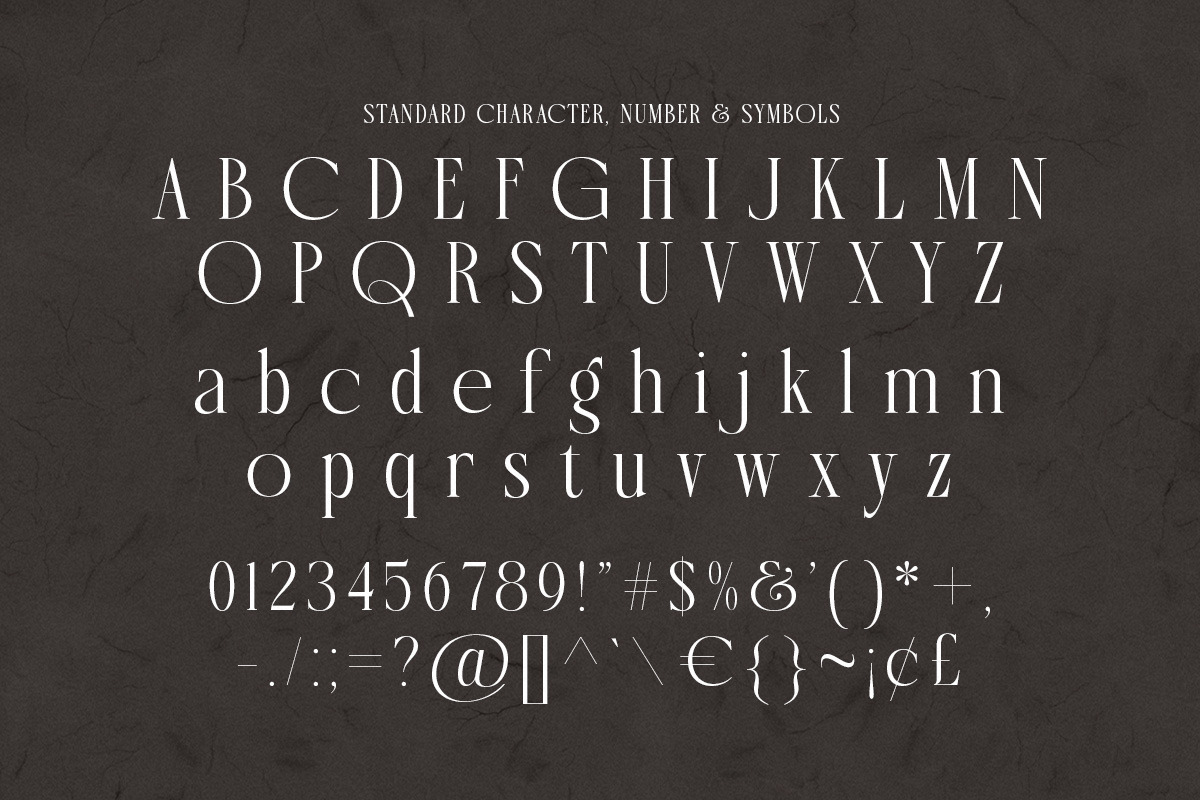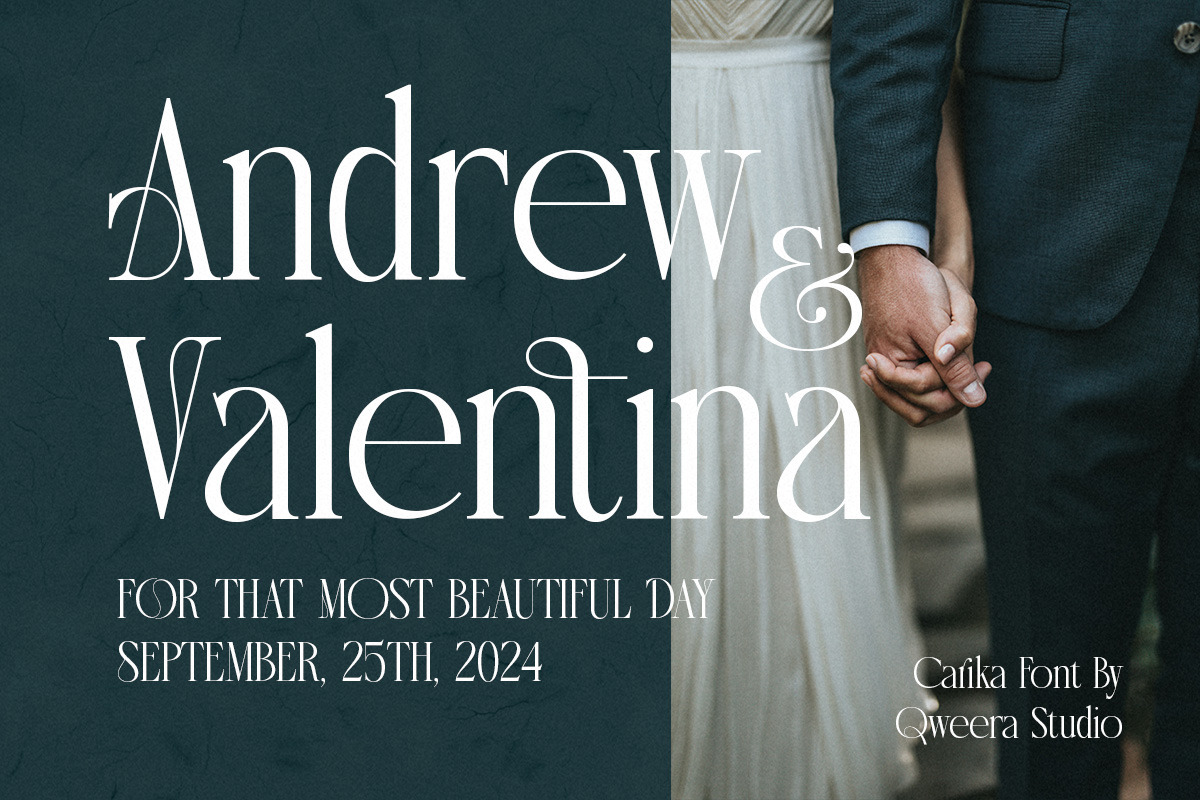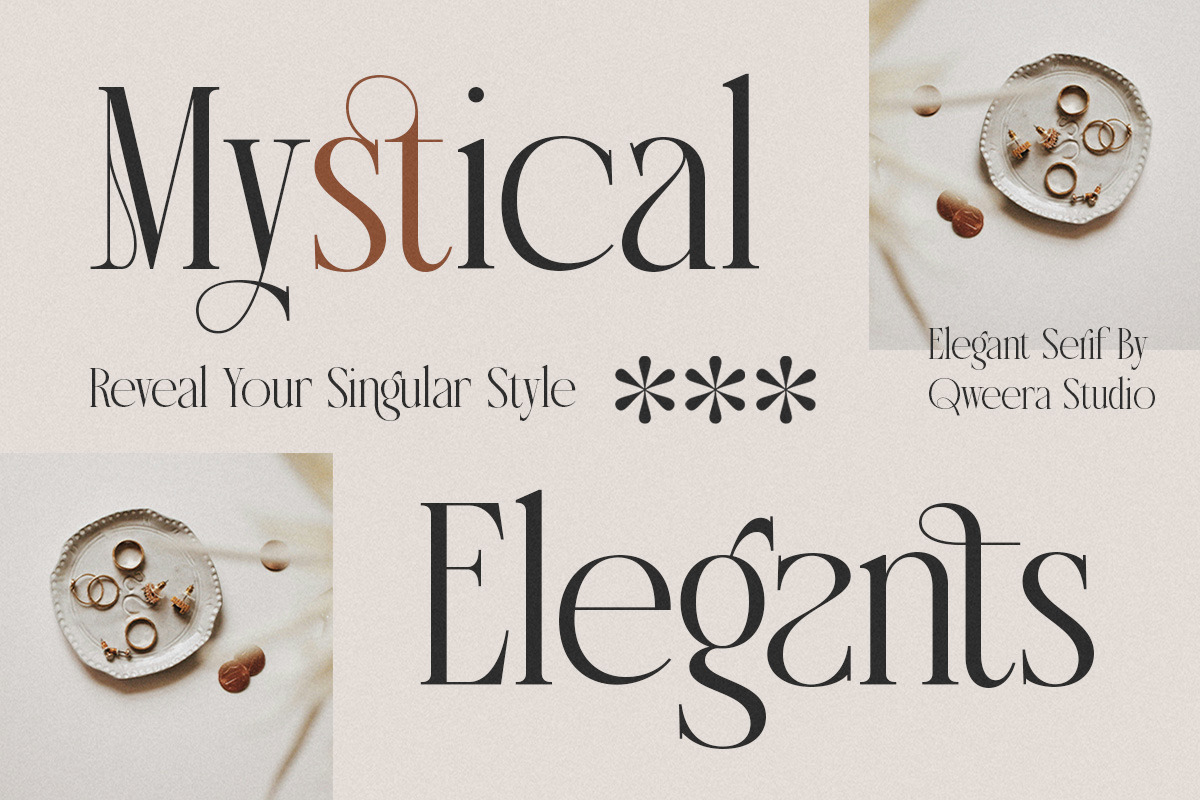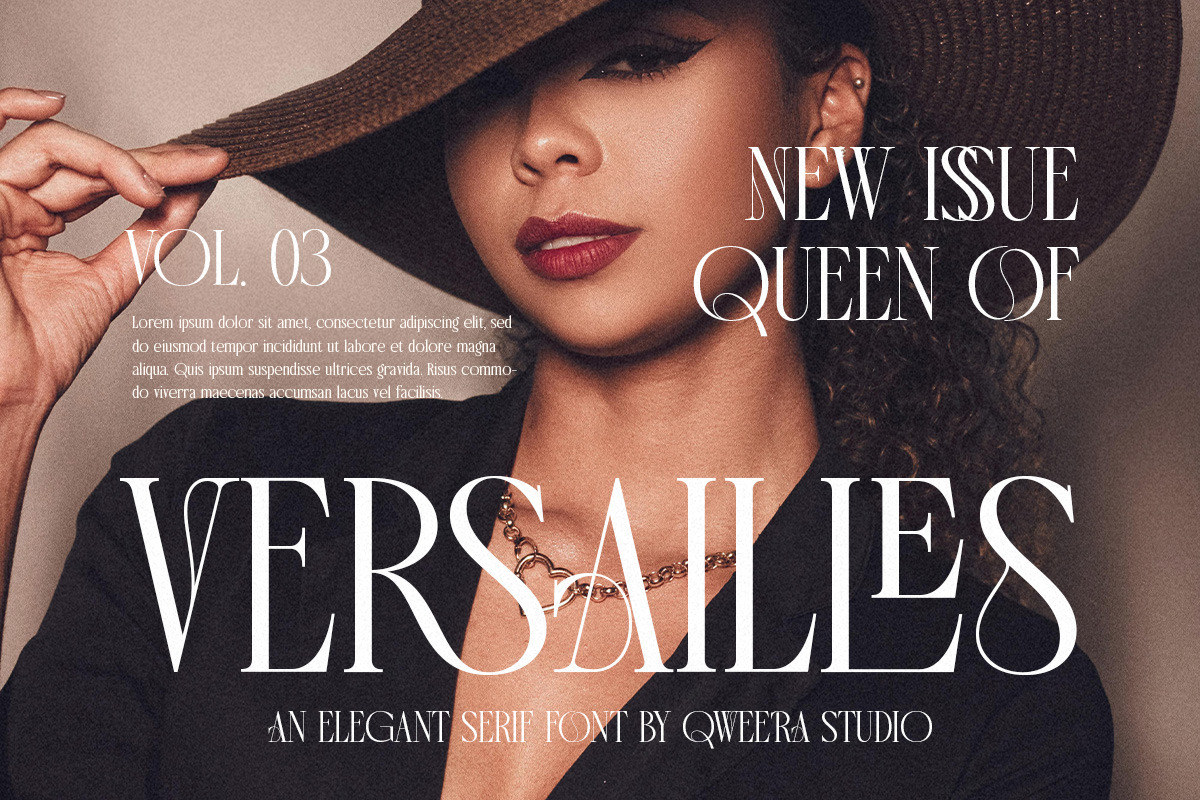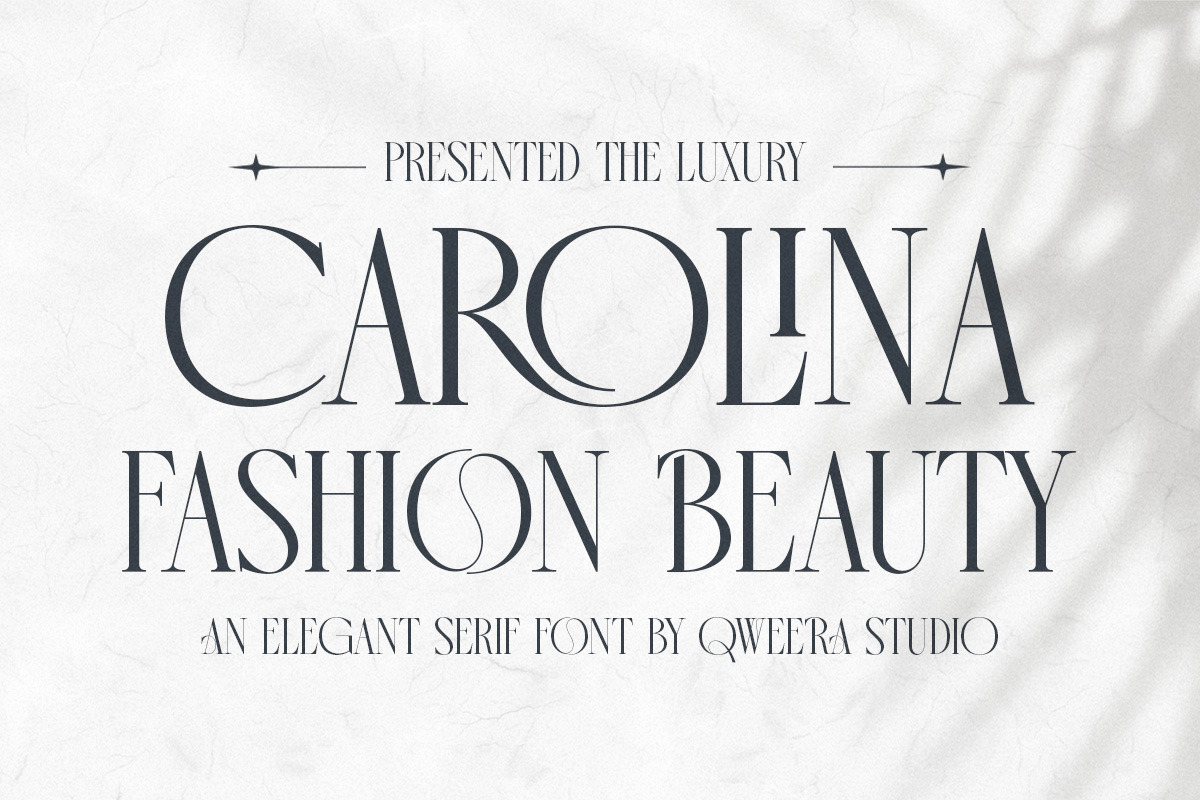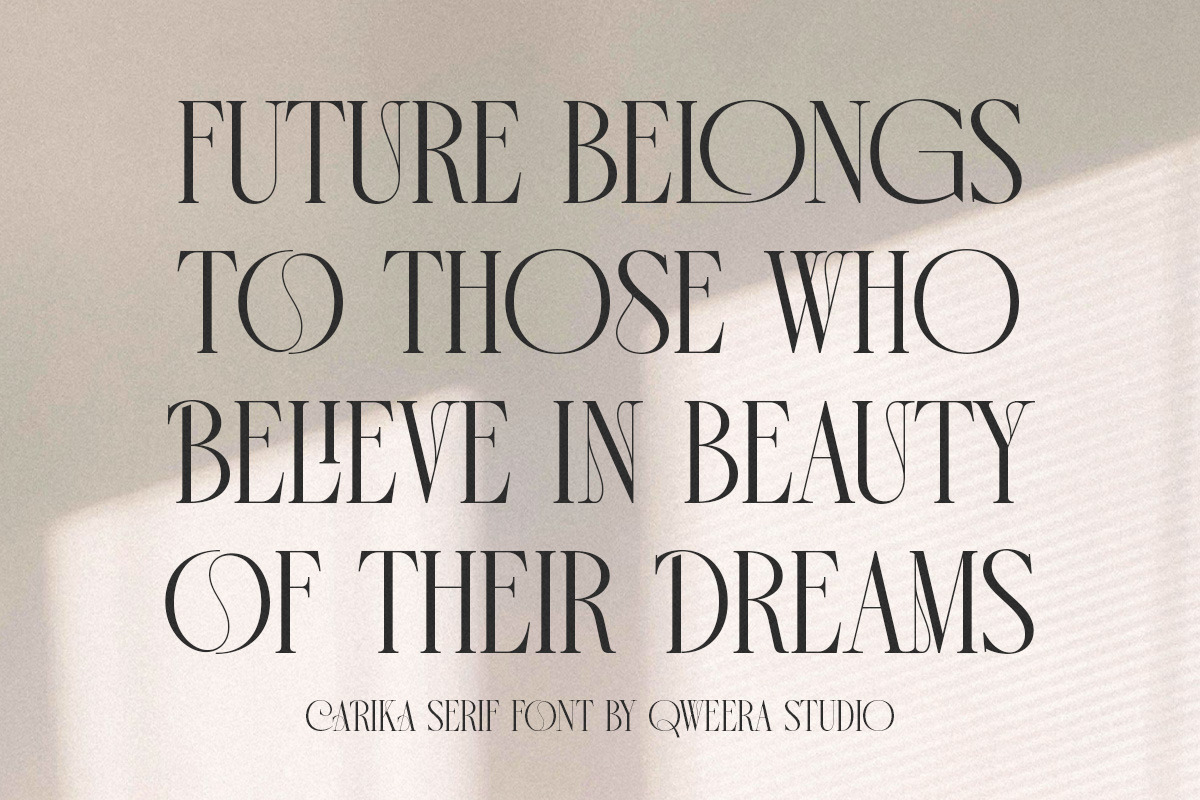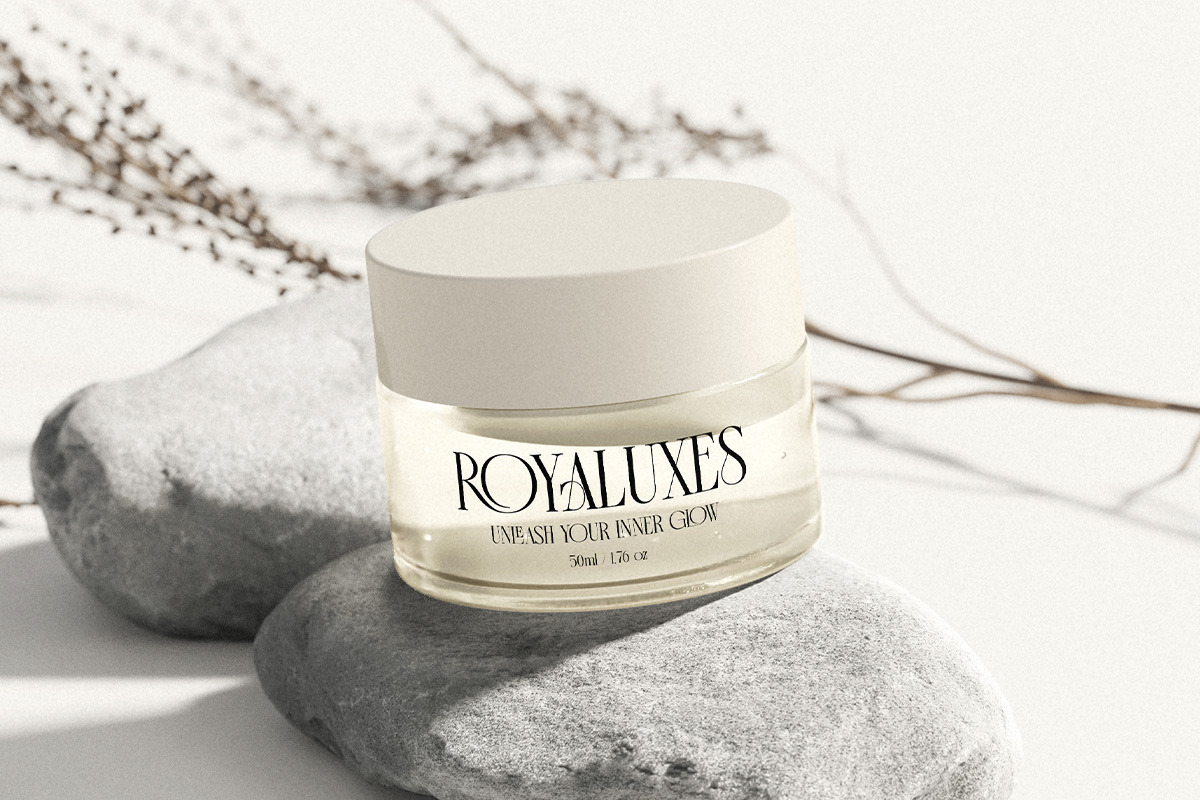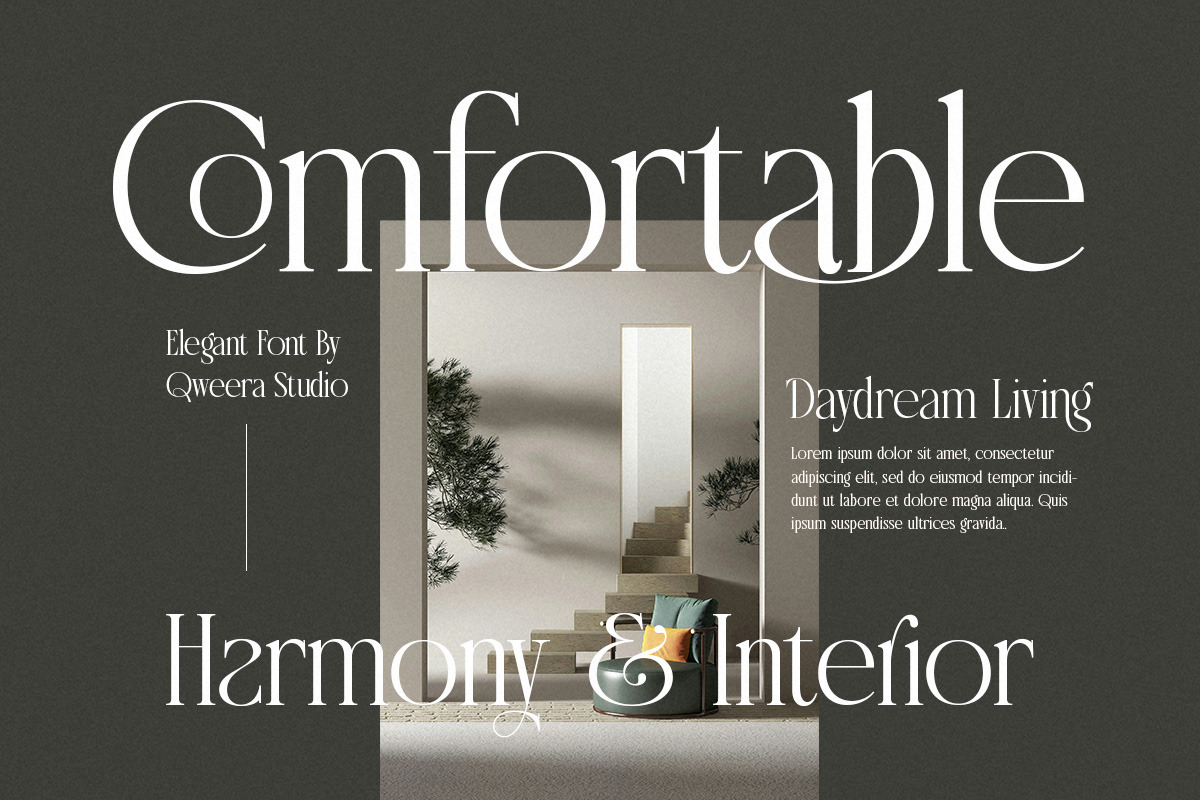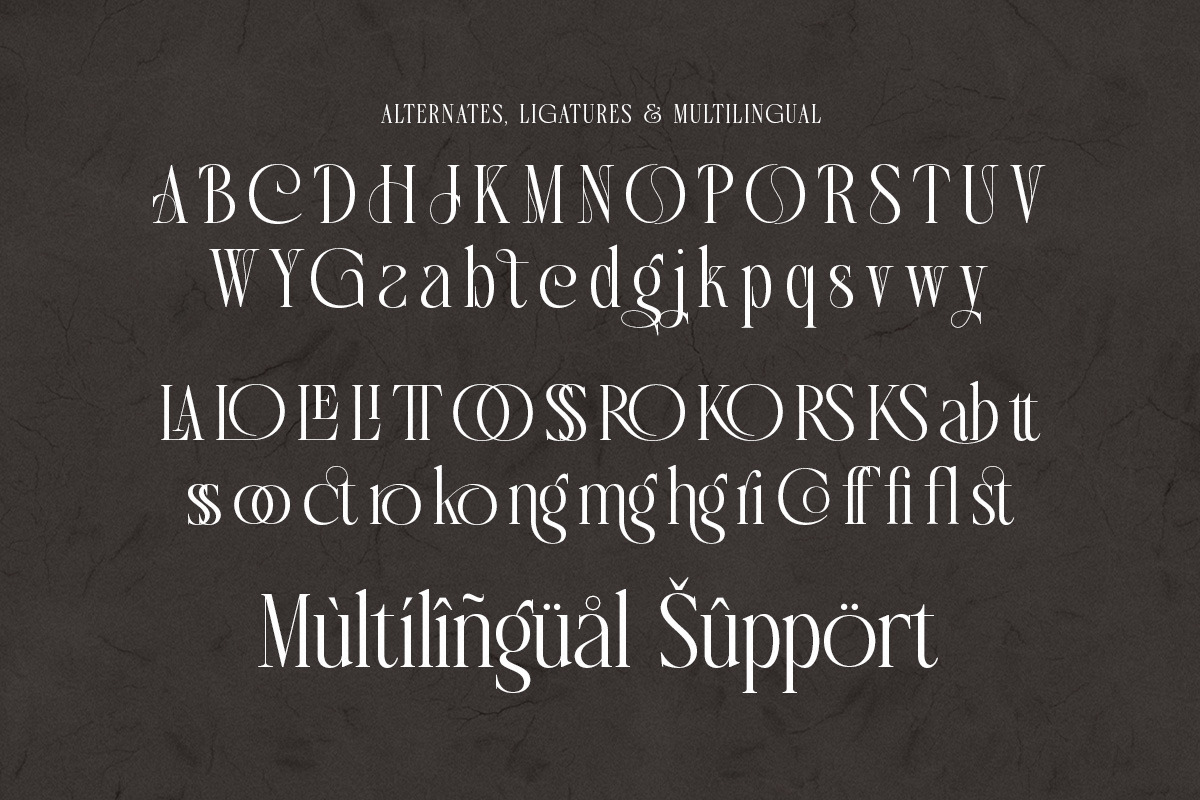
Carika - Elegant Serif
"Carika is an Elegant Serif font designed to add a touch of luxury to any of your design projects. It comes in regular and italic versions, combining classic elegance with modern style. Equipped with unique alternates and ligatures, Carika is perfect for branding, editorial, and other creative projects that require elegant and classy typography."
- Regular & Italic
- Opentype features ( ligature, alternate )